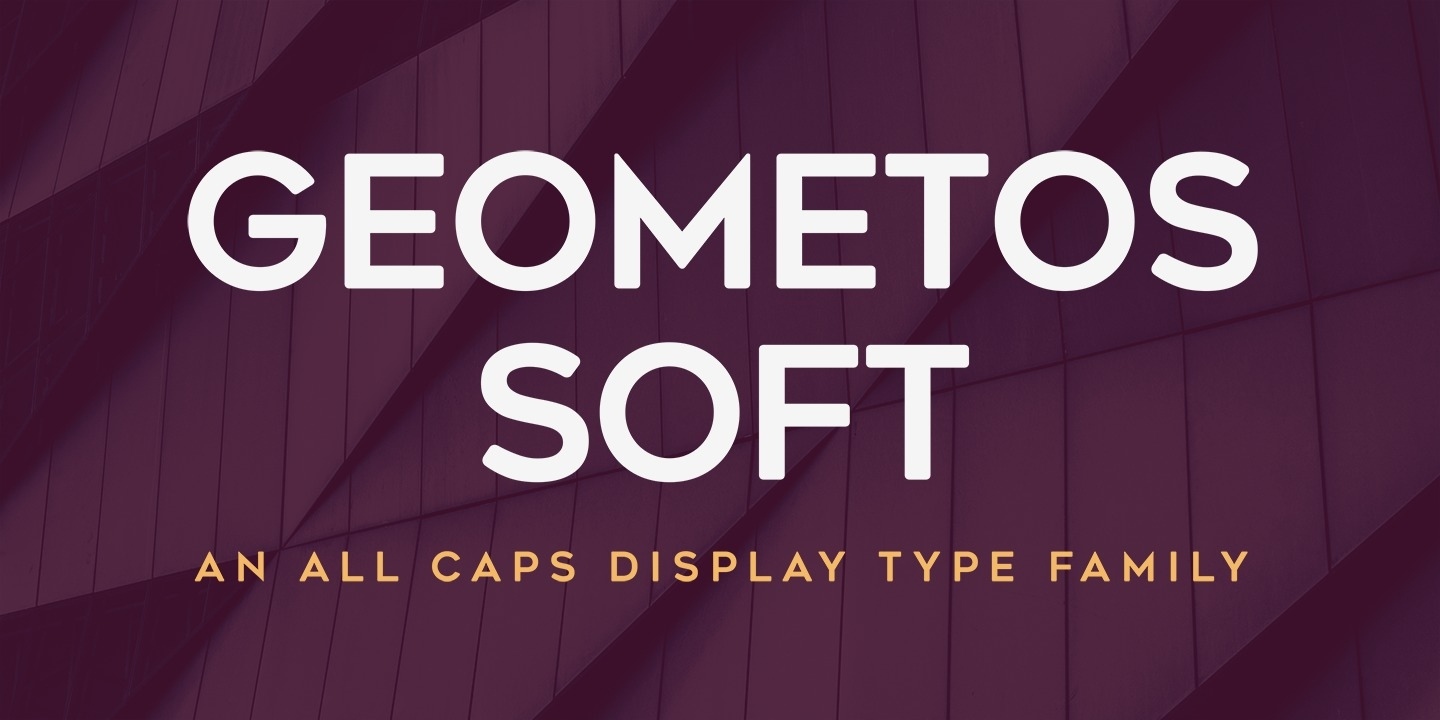
Geometos Soft Font
Geometos Soft Font is perfect for modern tech company branding, gentle children's educational apps, friendly healthcare facility signage, approachable geometric design studios, soft minimalist architecture presentations, contemporary wellness center materials, user-friendly software interfaces, modern pediatric clinic graphics, gentle geometric toy packaging, and approachable contemporary brand communications. This refined typeface excels in applications where geometric precision meets human warmth and accessible sophistication.
What makes Geometos Soft Font exciting is its masterful balance between mathematical precision and human approachability through softened geometric letterforms that maintain systematic clarity while adding gentle curves that make technology feel more human and accessible. The font features carefully rounded character construction with subtle geometric details and warm proportions that immediately convey both technical competence and friendly accessibility. Its harmonious personality makes it perfect for brands that need to communicate complex ideas clearly while maintaining the warmth essential for building trust with diverse audiences.
The Geometos Soft Font family typically includes comprehensive weight options from Light to Bold, often featuring rounded variations that enhance the soft, approachable aesthetic while maintaining geometric integrity for technical applications. Many versions include alternate characters with enhanced gentle styling, refined ligatures that improve readability, and special symbols that reflect contemporary design principles and user-friendly interface standards. Some collections include condensed variations and soft effects that maximize the friendly, accessible character for human-centered design applications.
Whether you're developing brand identities for technology companies that prioritize user experience, creating materials for family-focused businesses, or designing interfaces that require both precision and approachability, Geometos Soft Font Free Download delivers the contemporary sophistication that human-centered brands demand. Its friendly character makes it perfect for organizations that serve diverse audiences requiring both technical accuracy and emotional comfort. The font's ability to convey both systematic reliability and human warmth makes it particularly valuable for healthcare technology, educational platforms, and family-focused service providers seeking to build trust through typography that demonstrates both professional competence and genuine care for user experience and human connection.